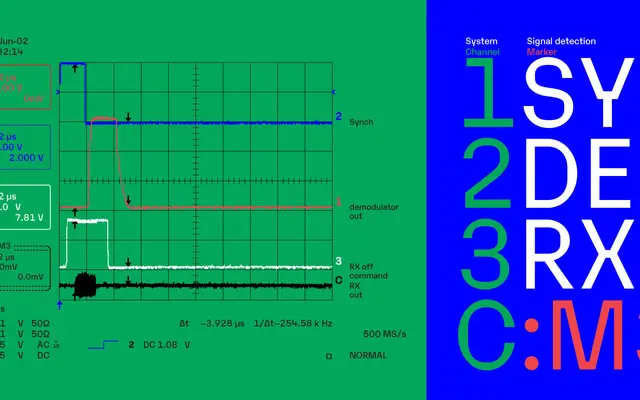
Karelia
A post-contemporary neo-grotesque by Frode Helland that borrows structural ink-trap details from small-size type design and scales them into expressive headline features.
Designed by Frode Helland and released by Monokrom in 2018, Karelia pairs the spacing and proportions of a headline grotesque with dislocated corners, trapezoid ink traps and squared-off counters lifted from text-size type conventions. The result reads as conventional at small sizes but becomes distinctly angular and mechanical when set large. Its name references the Finnish-Russian border region, signalling the hybrid influence of Western European neo-grotesque structure and Soviet modernist angularity.
Described explicitly as a neo-grotesque, with a mechanistic flavour and angular details drawn from Soviet modernist design, sitting within the broader Western European grotesque tradition.